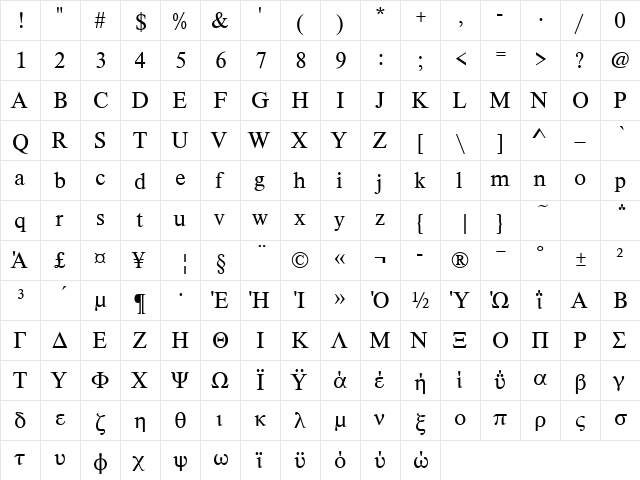
TimelessTGRLig Regular
Design Context for TimelessTGRLig Typeface
TimelessTGRLig is a composed and adaptable typeface that performs quietly and consistently across a wide range of design contexts.